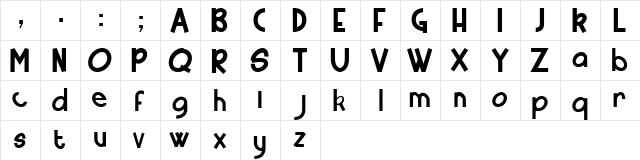
Four More Years Regular
Design Context for Four More Years Typeface
Four More Years takes a measured approach to typography — its balanced proportions and neutral character make it a reliable workhorse for both digital and print work.